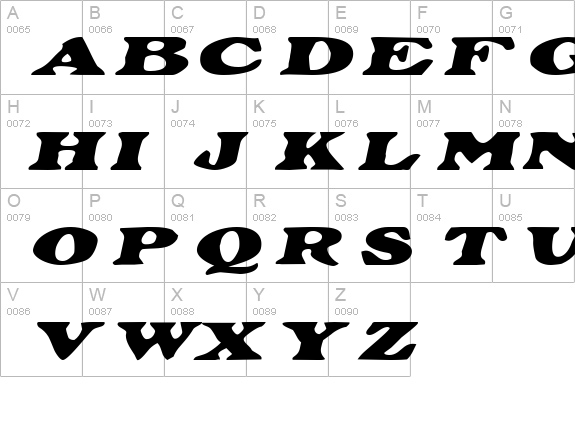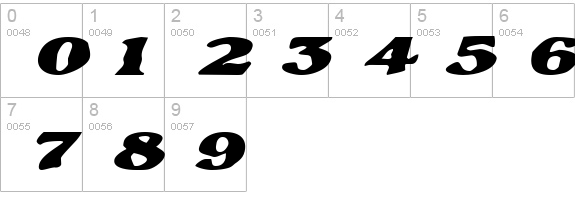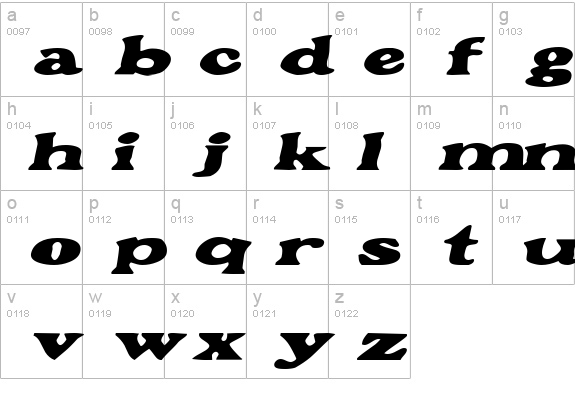
GrantExtended Oblique Font Details
GrantExtended Oblique is a distinctive, italic variant in the GrantExtended typeface family \xE2\x80\x94 well suited to design and typography projects.
GrantExtended Oblique font is a stylish and versatile typeface that exudes sophistication and elegance. Its slanted design adds a touch of dynamism to any text, making it perfect for creating eye-catching headlines, titles, and branding materials. The sleek curves and sharp angles of GrantExtended Oblique font give it a modern and edgy vibe, making it a popular choice for designers looking to make a statement. The best part about GrantExtended Oblique font is that it is completely free to download at FontsMarket.com. This means that you can easily access this high-quality font without having to spend a penny. Whether you are working on a personal project or a professional design, GrantExtended Oblique font is sure to elevate your work and make it stand out from the crowd. Don't miss out on the opportunity to enhance your designs with the stunning GrantExtended Oblique font, available for free at FontsMarket.com. Download it today and unleash your creativity with this exceptional typeface.